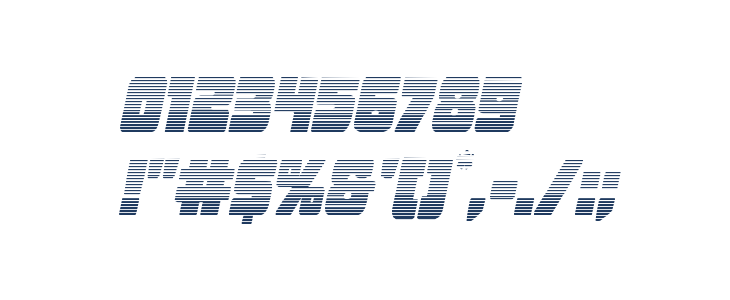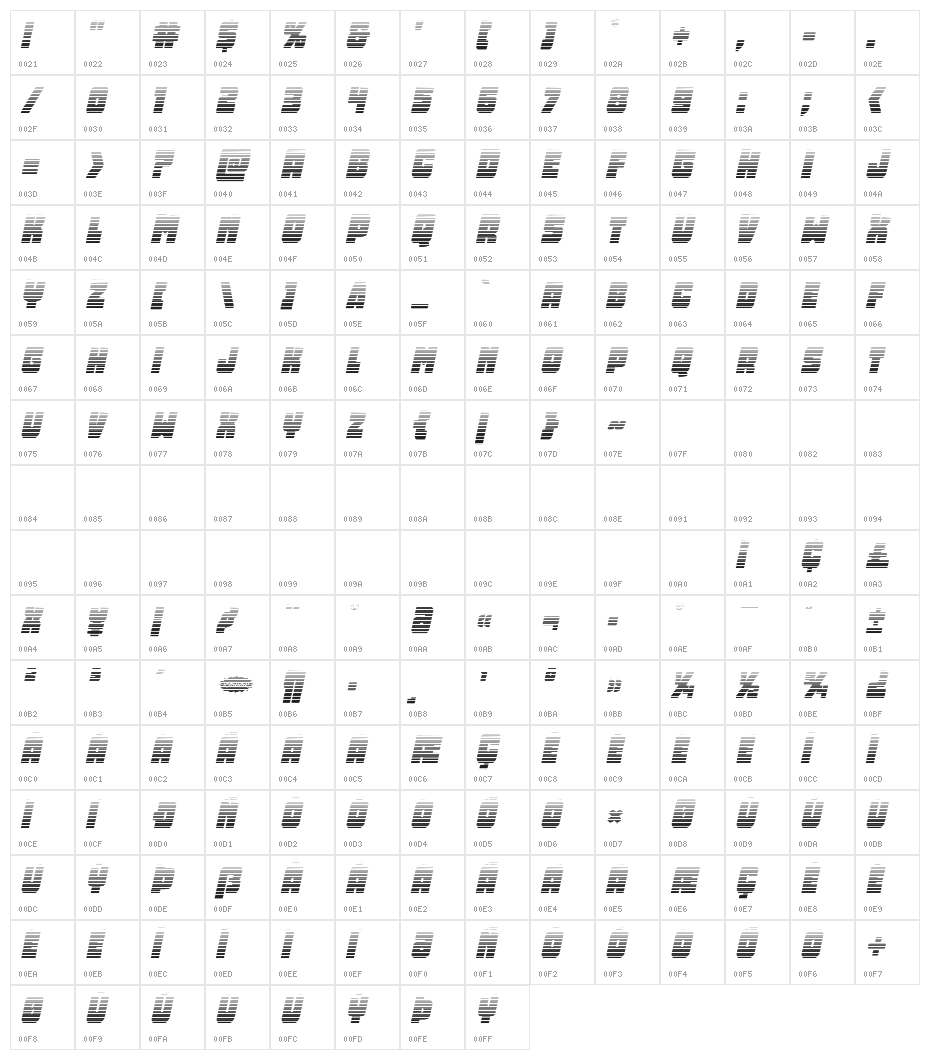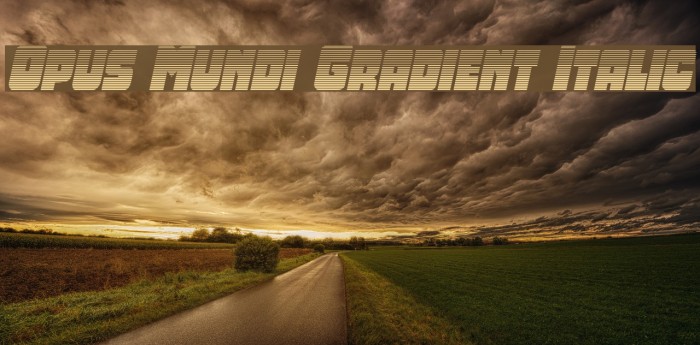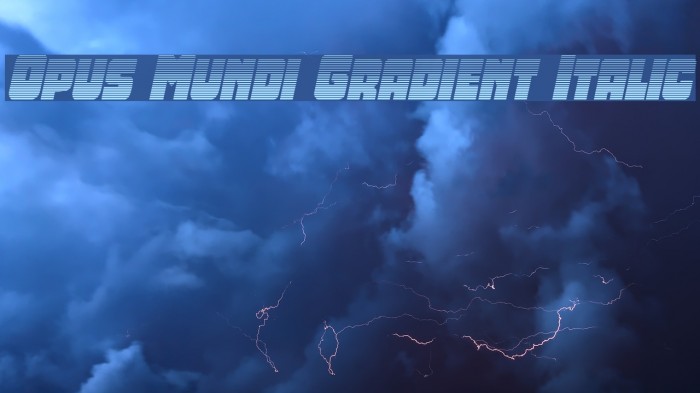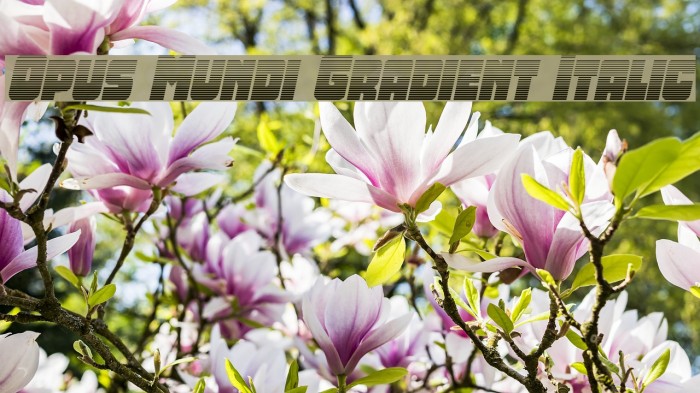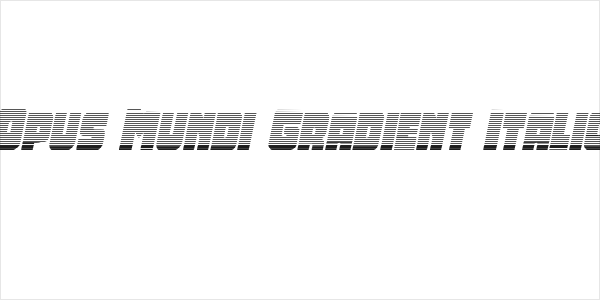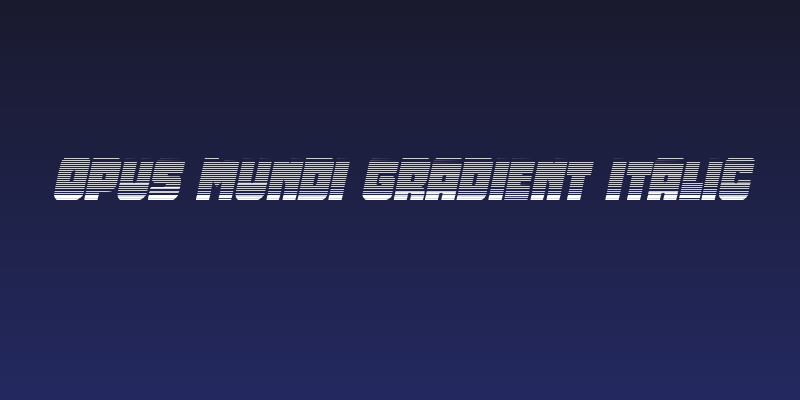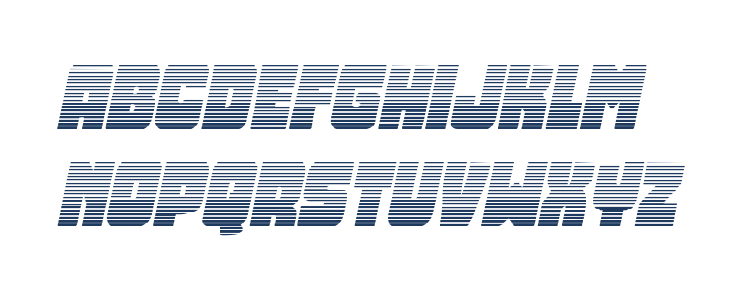
Opus Mundi Gradient Italic Font
Opus Mundi Gradient Italic Description
This font features a bold, italicized style with a distinctive gradient effect that gives it a dynamic and modern appearance. The characters are designed with horizontal lines that create a sense of movement and depth, making it stand out as a display typeface. The uppercase and lowercase letters maintain a consistent width, while the numbers and special characters follow the same design principles, ensuring uniformity across all glyphs. The gradient effect is particularly striking, adding a futuristic and edgy feel to the text.
| Proposed Projects | Ideal for futuristic branding, tech-related projects, sports team logos, and dynamic poster designs. |